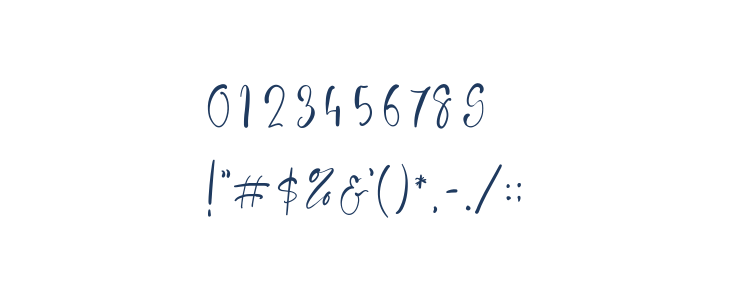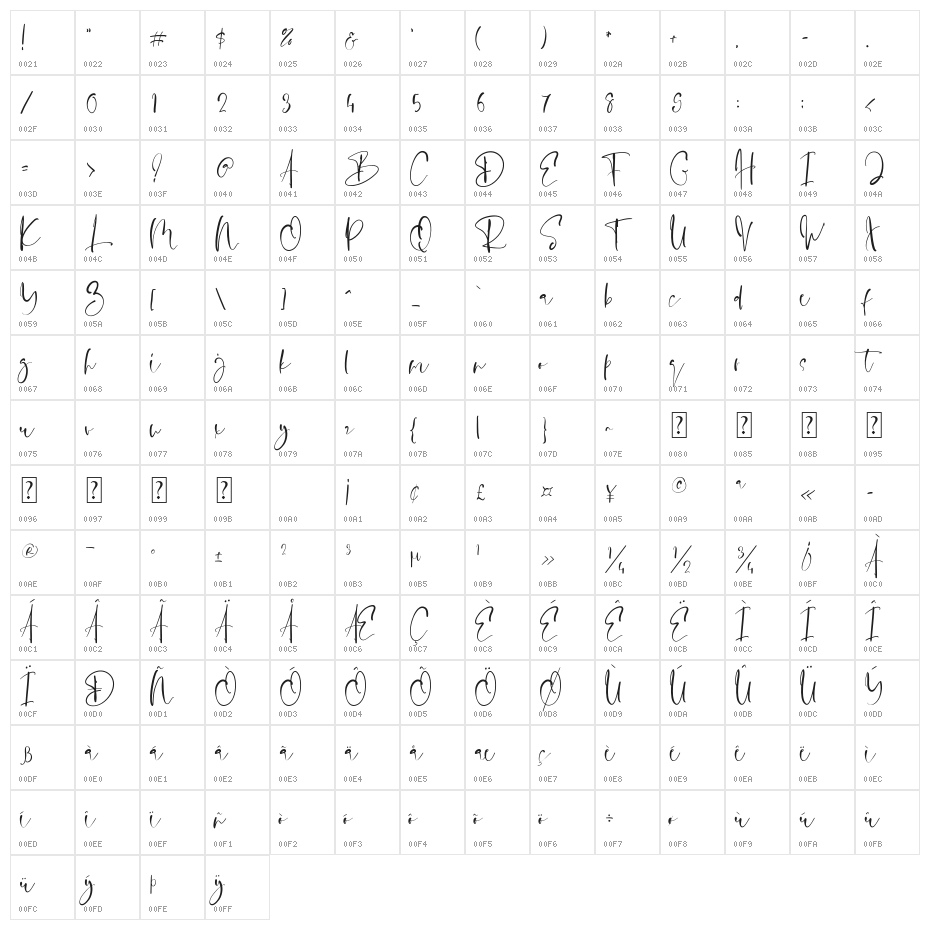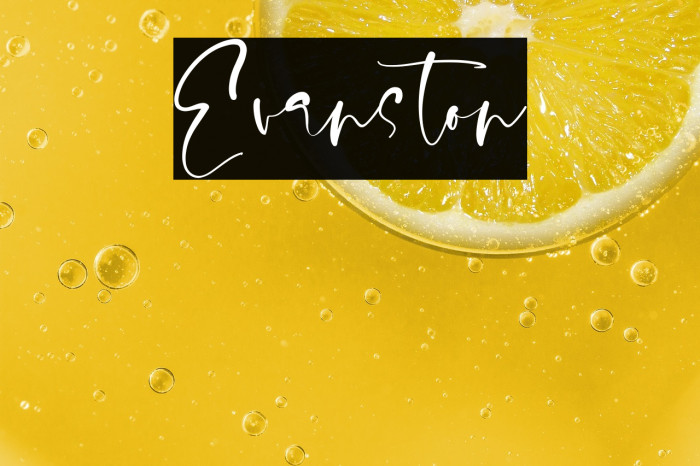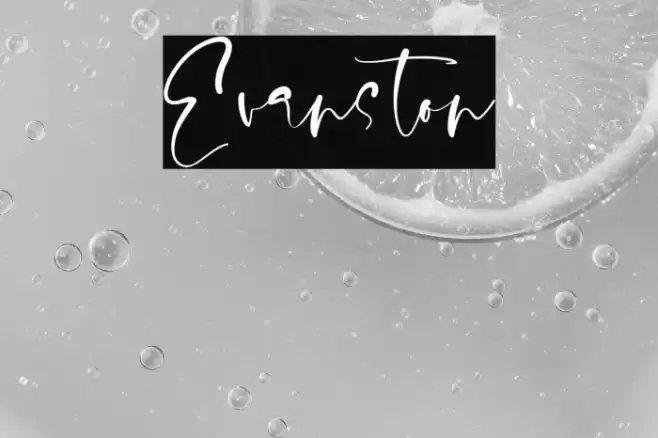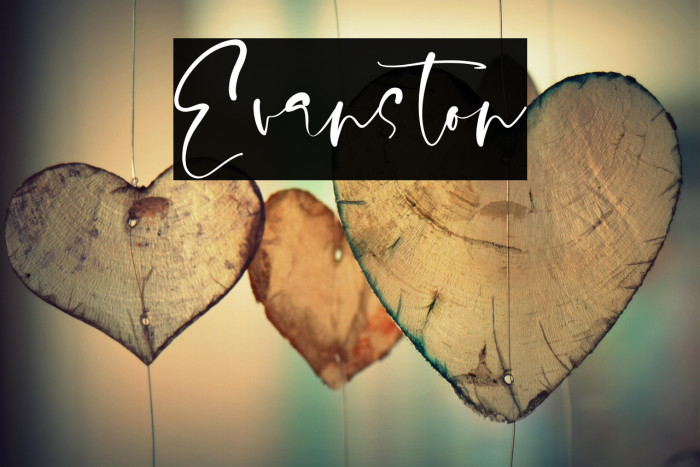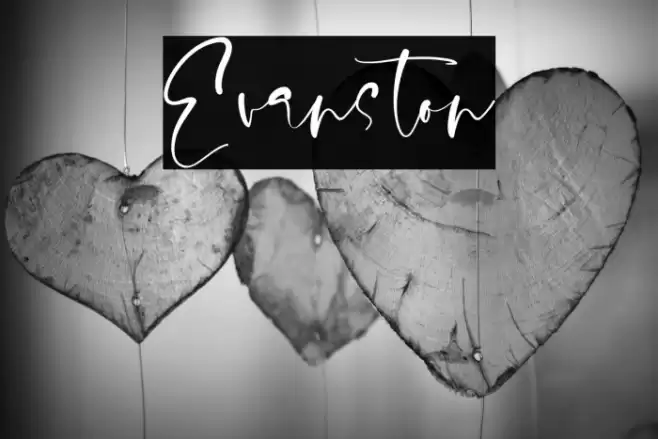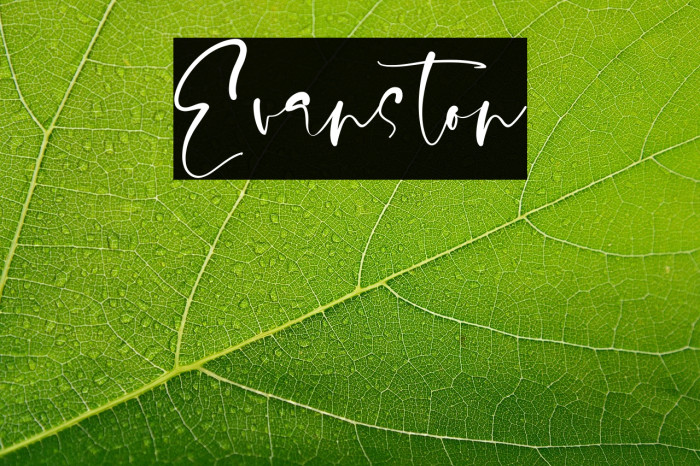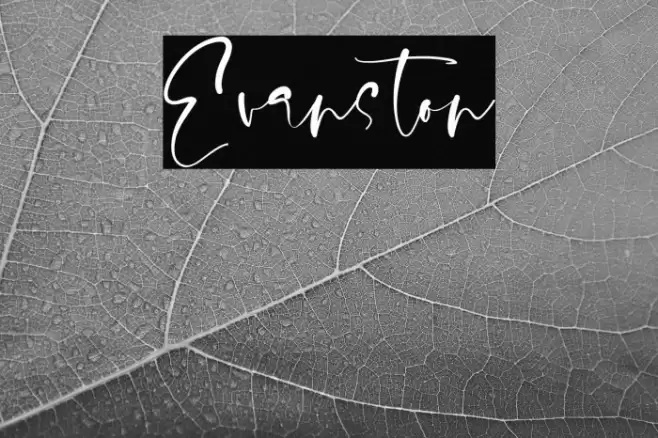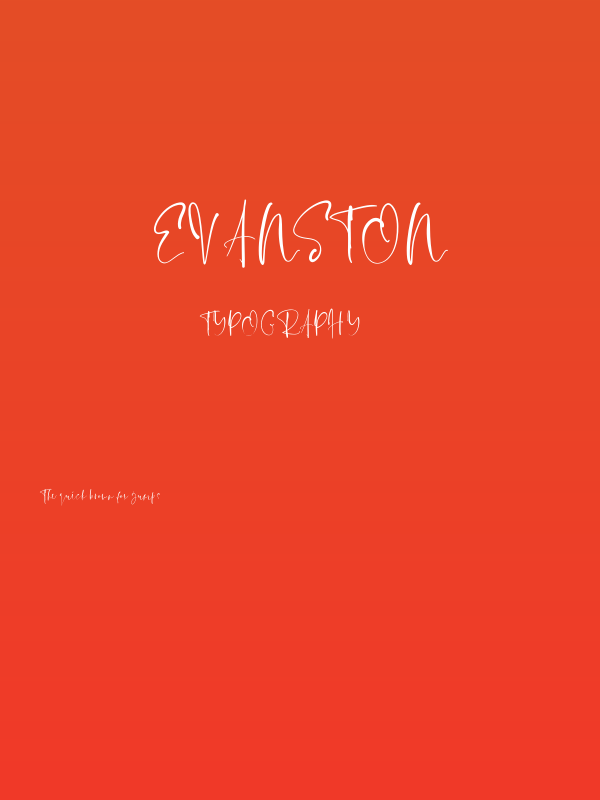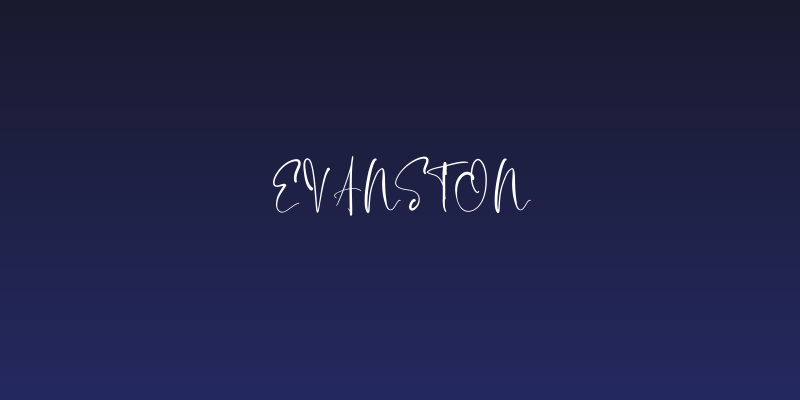
Evanston Font
Evanston Description
This font features a lively and expressive handwritten style, characterized by its fluid and dynamic strokes. The uppercase letters exhibit a playful yet elegant flair, with varying line thicknesses that add a sense of movement and personality. The lowercase characters maintain a consistent flow, complementing the uppercase with their slightly more restrained forms. Numbers and special characters follow the same energetic style, ensuring a cohesive look across all text elements. The overall design is both artistic and approachable, making it suitable for creative projects that require a personal touch.